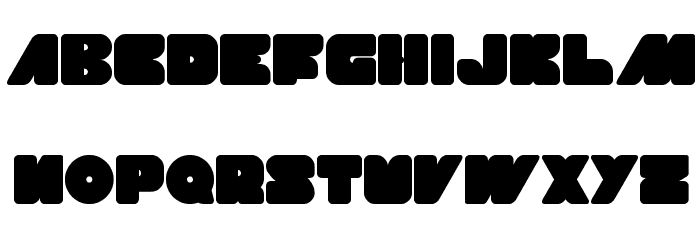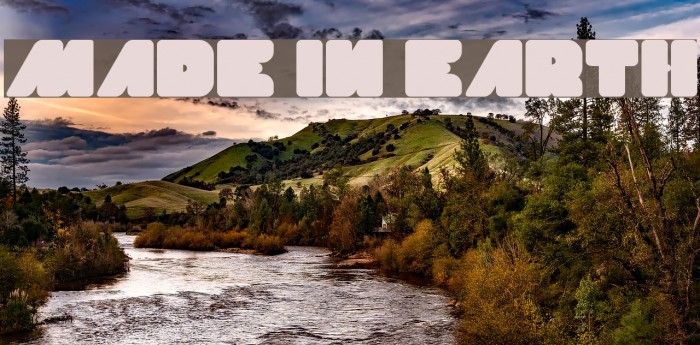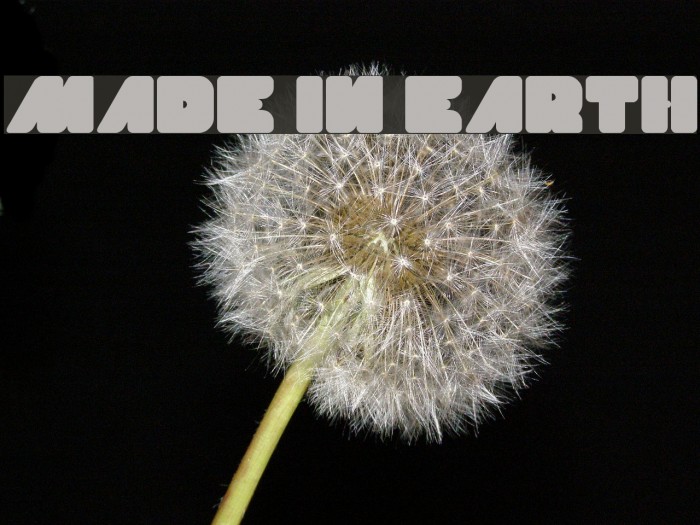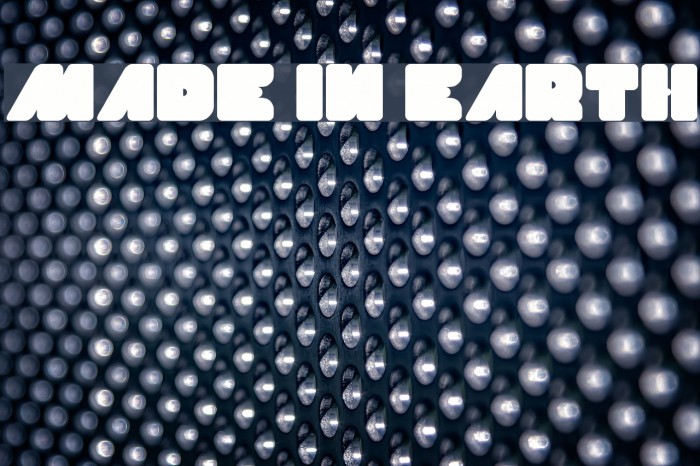
MADE IN EARTH Font
This font features a bold and geometric design with a strong emphasis on rounded edges and thick strokes. The characters are uniformly wide, creating a cohesive and impactful appearance. The style is reminiscent of retro or vintage aesthetics, with a modern twist that makes it suitable for contemporary design projects. Its boldness and unique character shapes make it ideal for attention-grabbing headlines or logos. The font's playful yet structured form can add a distinctive touch to any creative work.
A bold, geometric font with rounded edges and thick strokes, perfect for retro-modern designs.
- Proposed Projects: Ideal for branding, poster design, album covers, and any project requiring a bold, standout typeface.
- Overall Style: Retro, Modern